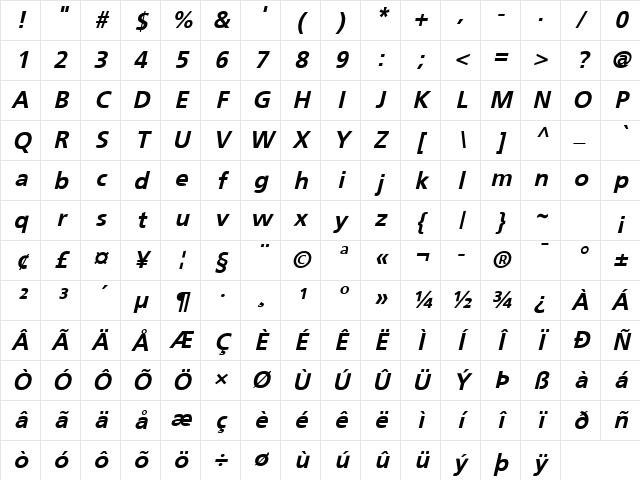
Complete Weissach Bold Oblique glyph index. Displaying only characters natively supported by Weissach Bold Oblique font.
Weissach is a composed and adaptable typeface that performs quietly and consistently across a wide range of design contexts. The slanted form adds forward momentum and visual energy. Its bold stroke weight gives it real presence on the page.